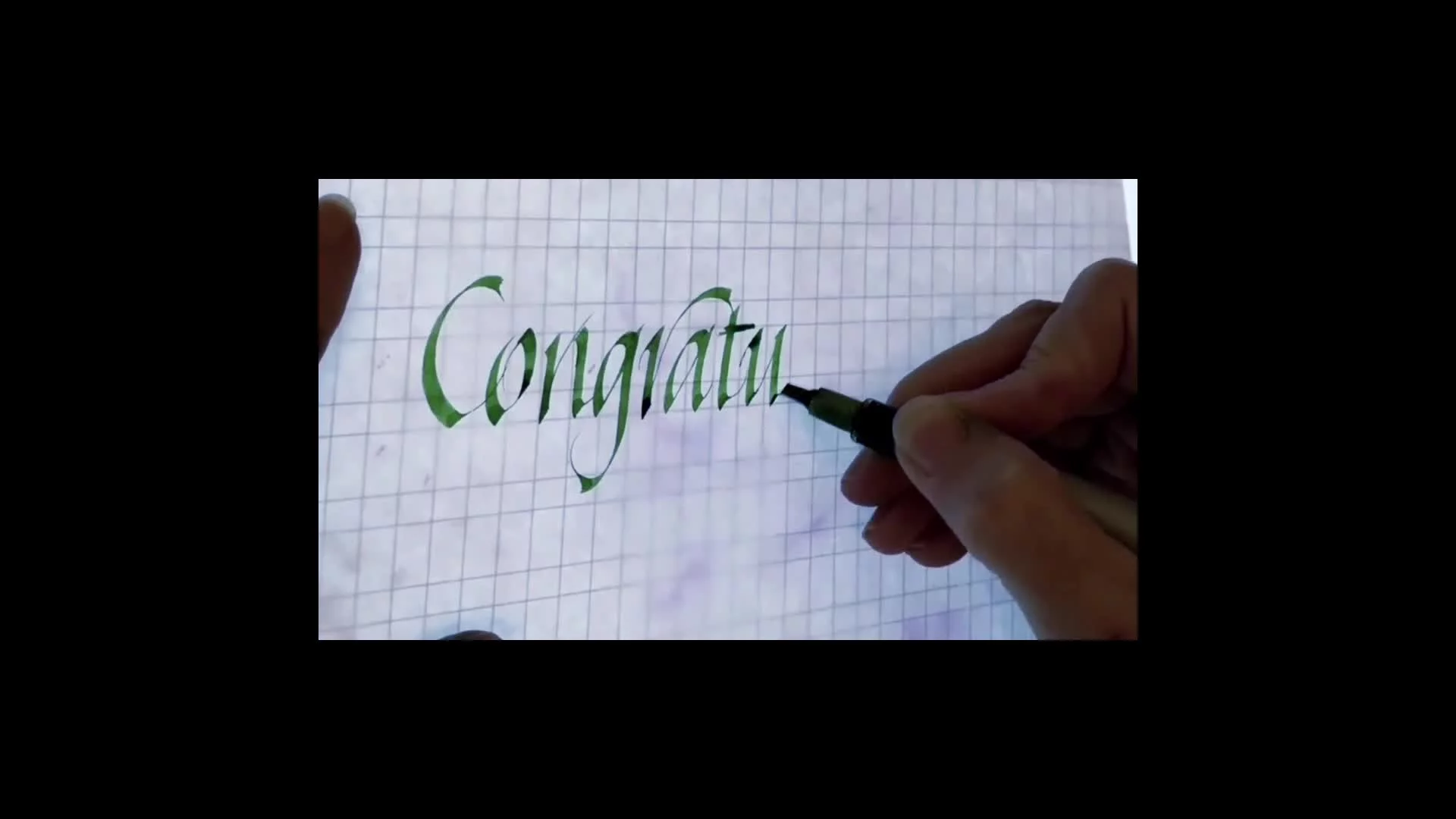
Short reels done in the course of wedding & special event calligraphy and photos of other special projects.
Broad-edged pen (Pilot Parallel Pen)
Italic lettering done with a broad edged pen, in this case, a Pilot Parallel Pen. This style of lettering is useful when the words must be legible and read at a distance. Some examples are cocktail signs at weddings, table tents at corporate conventions, posters on easels.
Broad-edged calligraphy using 3 Pilot parallel pens and “color transferring”.